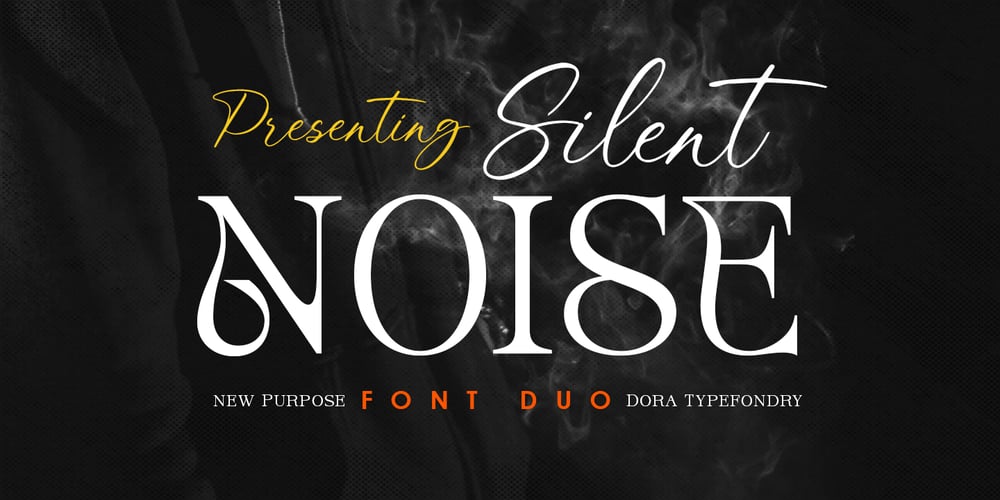
Silent Noise Font Duo Font Family was designed by Zahratul Laila and published by Dora Typefoundry. Silent Noise Font Duo contains 2 styles and family package options. Silent Noise has two font types, namely serif and handwritten script with a thin size, adding to the impression of elegance and class, both of these fonts have a subtle touch Silent Noise is versatile enough to add an elegant element to almost any project that requires a special touch of class.,perfect for casual type on greeting cards, illustrations, quotes, old branding, cover books, social media posts, packaging and many others :)Features : Uppercase & lowercase Numbers and punctuation Alternates & Ligatures Multilingual PUA encoded WHAT’S INCLUDED Silent Noise Serif Silent Noise Script Once you download this romantic, handwritten font duo you will be able to start creating straight away. Enjoy!We highly recommend using a program that supports OpenType features and Glyphs panels like many of Adobe apps and Corel Draw, so you can see and access all Glyph variations.This type of family has become the work of true love, making it as easy and fun as possible.I really hope you enjoy it!Thak you.